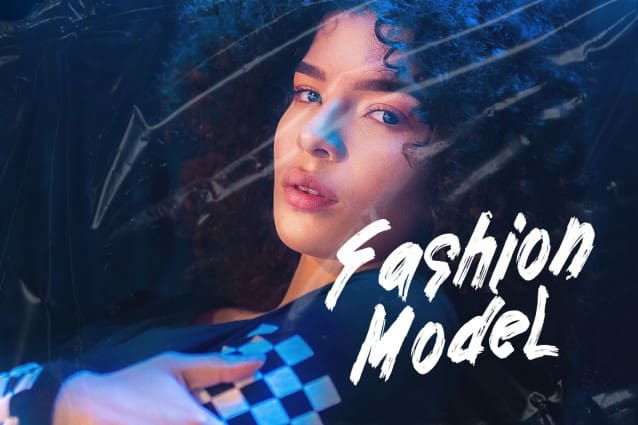
Shimosa Brush Font
Shimosa Brush Font: is a delicate, elegant and fluid handwritten font. It has a unique combination of ligatures and letters, so the authors have created it with a little bit of a swirl, to form a modern font that is ready to make a statement by adding elegance and uniqueness to your next design project. Add it to your most creative ideas and see how it makes them come to life!